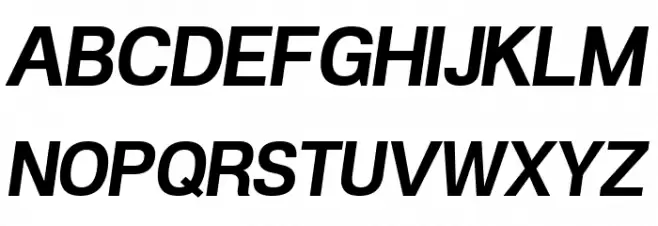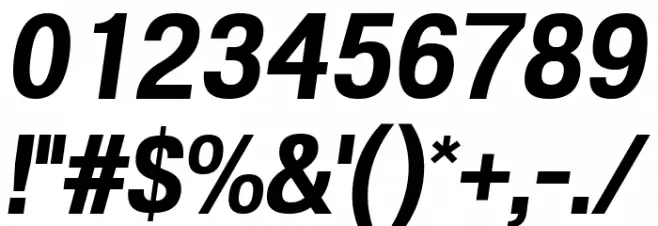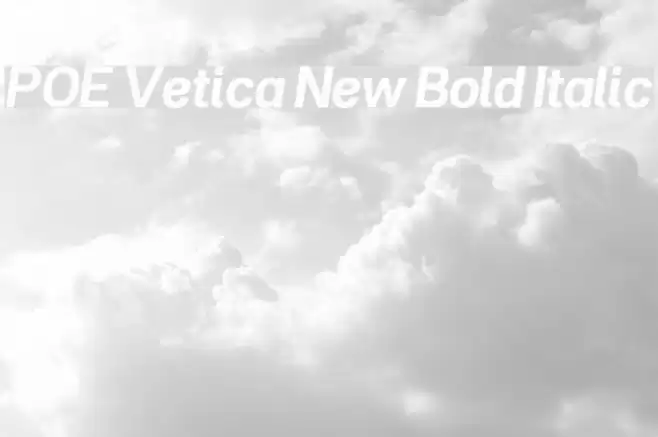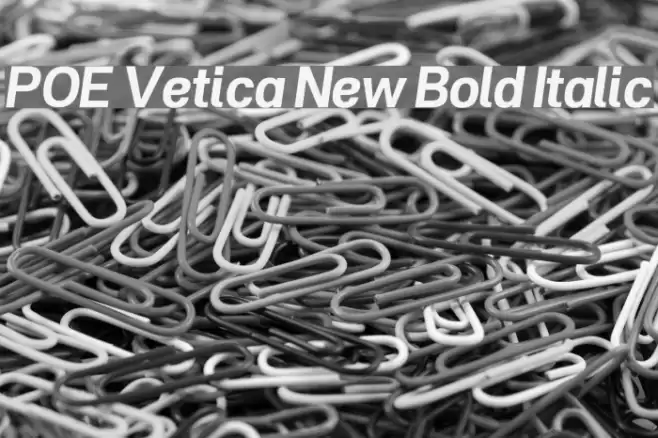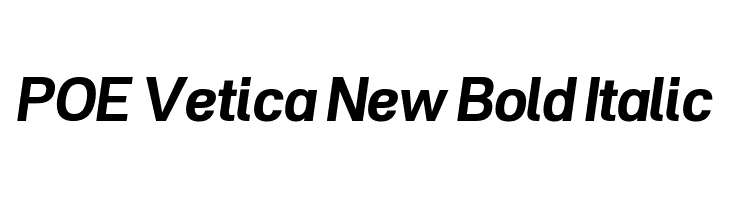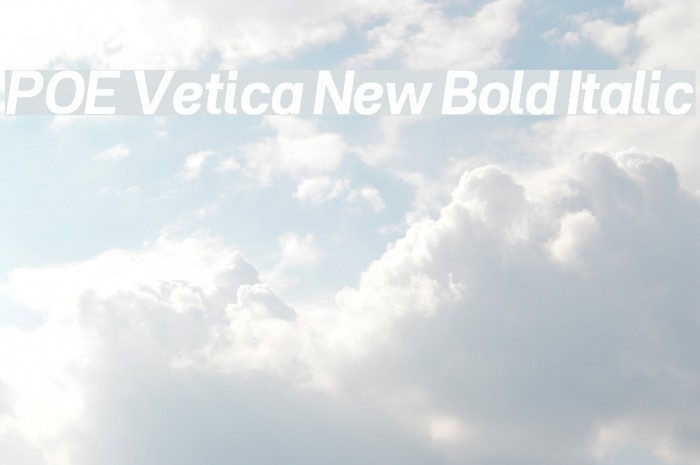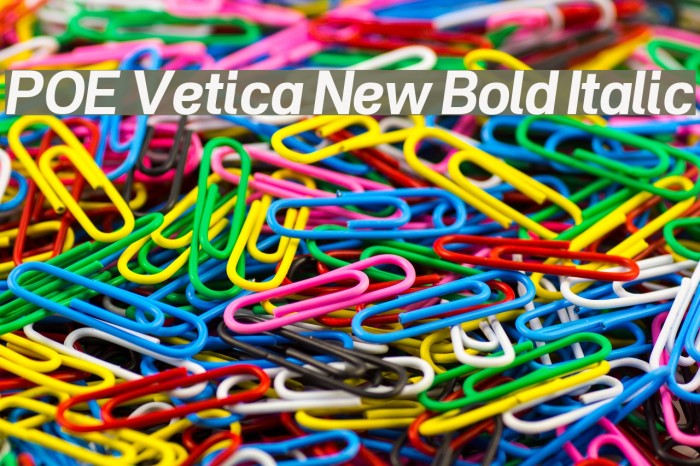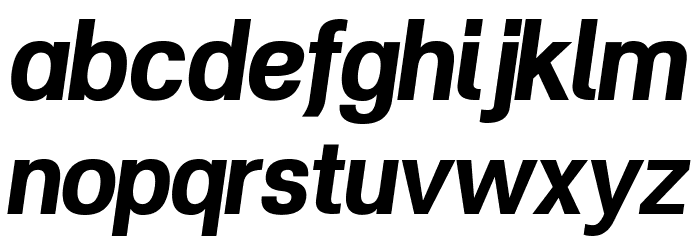
POE Vetica New Bold Italic
This typeface features a bold and italic style, characterized by its strong and dynamic appearance. The letters are slightly slanted, giving a sense of movement and urgency. The strokes are thick and consistent, providing a robust and confident look. The font maintains a clean and modern aesthetic, making it versatile for various design applications. The uppercase and lowercase letters are well-proportioned, and the numerals are clear and easy to read. Special characters are included, enhancing its utility for diverse projects.
A bold and italic typeface with a modern, dynamic style.
- Proposed Projects: Ideal for branding, advertising, headlines, and digital media where a strong and modern impression is desired.
- Use Case: Headlines, Logos, Advertising